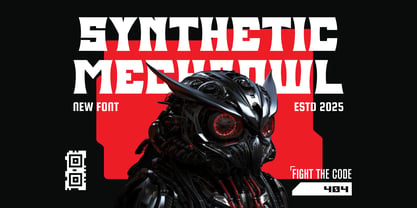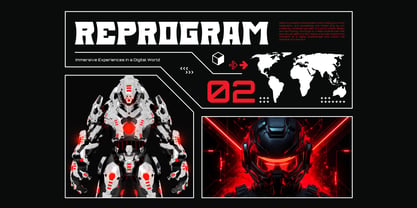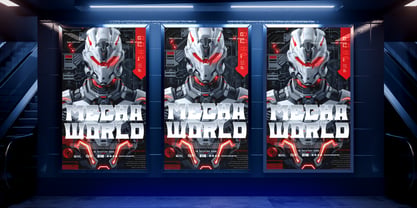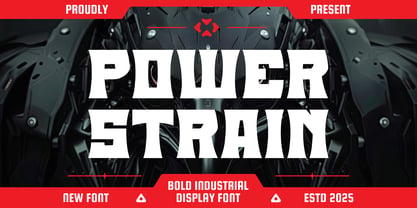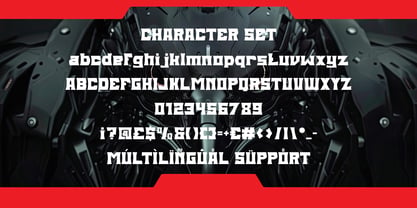
Power Strain
by Shanaf
The Power Strain Font Family was designed by Yesie Erma Yunita and published by Shanaf. Power Strain contains 1 styles. More about this family
Power Strain Futuristic Industrial Display Font embodies raw energy and modern mechanical aesthetics. Each letterform is built with heavy, angular strokes that emphasize strength, dominance, and precision. The tall and slightly flared shapes give this font an engineered feel, reminiscent of industrial machinery and futuristic armor. Sharp edges and geometric cuts create a dynamic motion effect, while its wide structure adds balance and stability. Power Strain Futuristic Industrial Display Font delivers a bold statement in every design — perfect for projects that demand authority and innovation. This font excels in logos, branding, posters, and sci-fi titles that need a modern technological vibe. It also works beautifully for sports branding, gaming visuals, and industrial packaging where bold legibility is essential. The typeface’s mechanical proportion and high-impact design make it ideal for attention-grabbing headlines, dynamic movie titles, and strong futuristic interfaces. With its fusion of industrial grit and modern style, Power Strain Futuristic Industrial Display Font redefines what power looks like in typography. Built for creators who aim to dominate visual space, it ensures every message stands tall, strong, and unforgettable.
Designers: Yesie Erma Yunita
Foundry: Shanaf